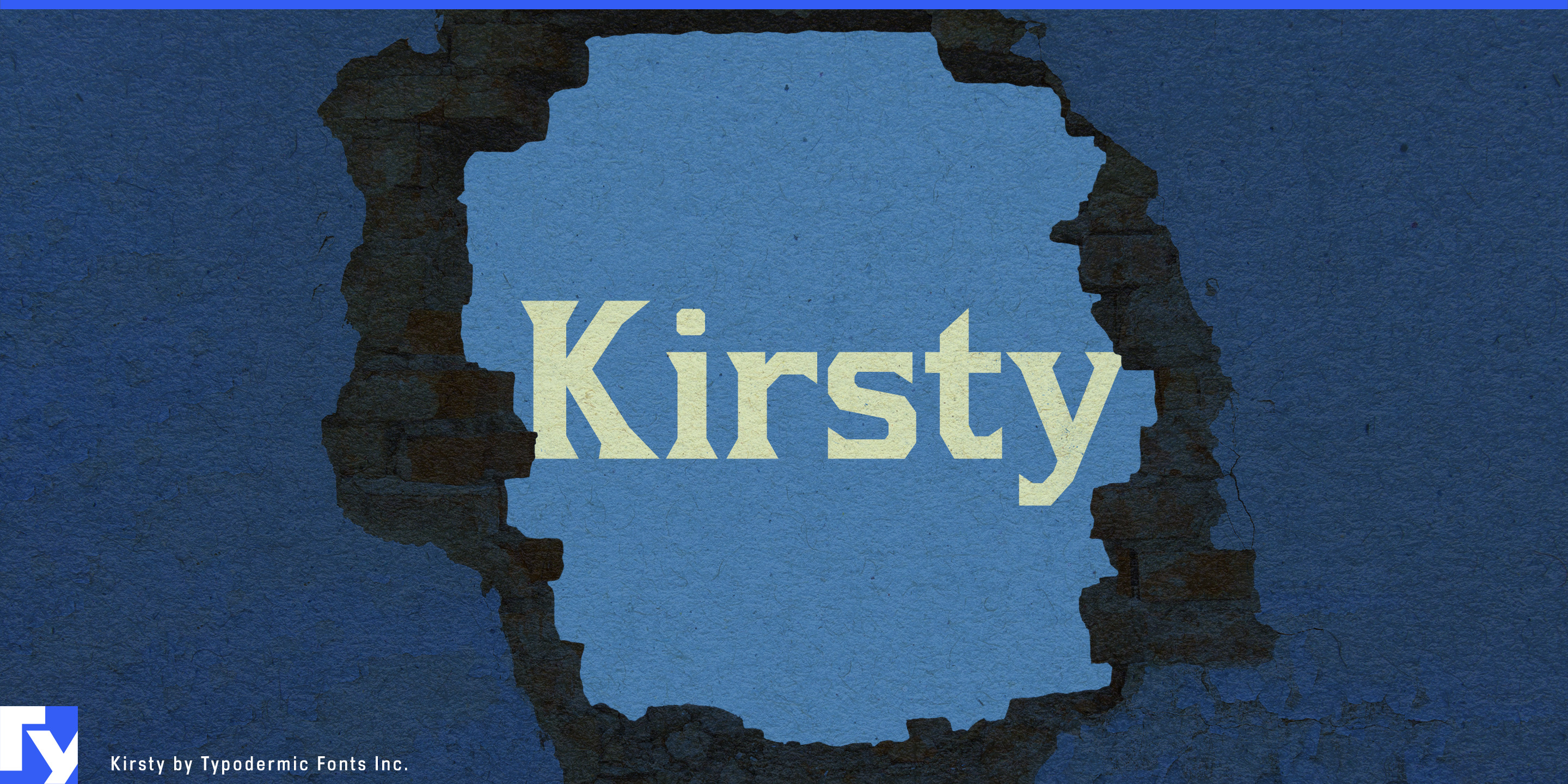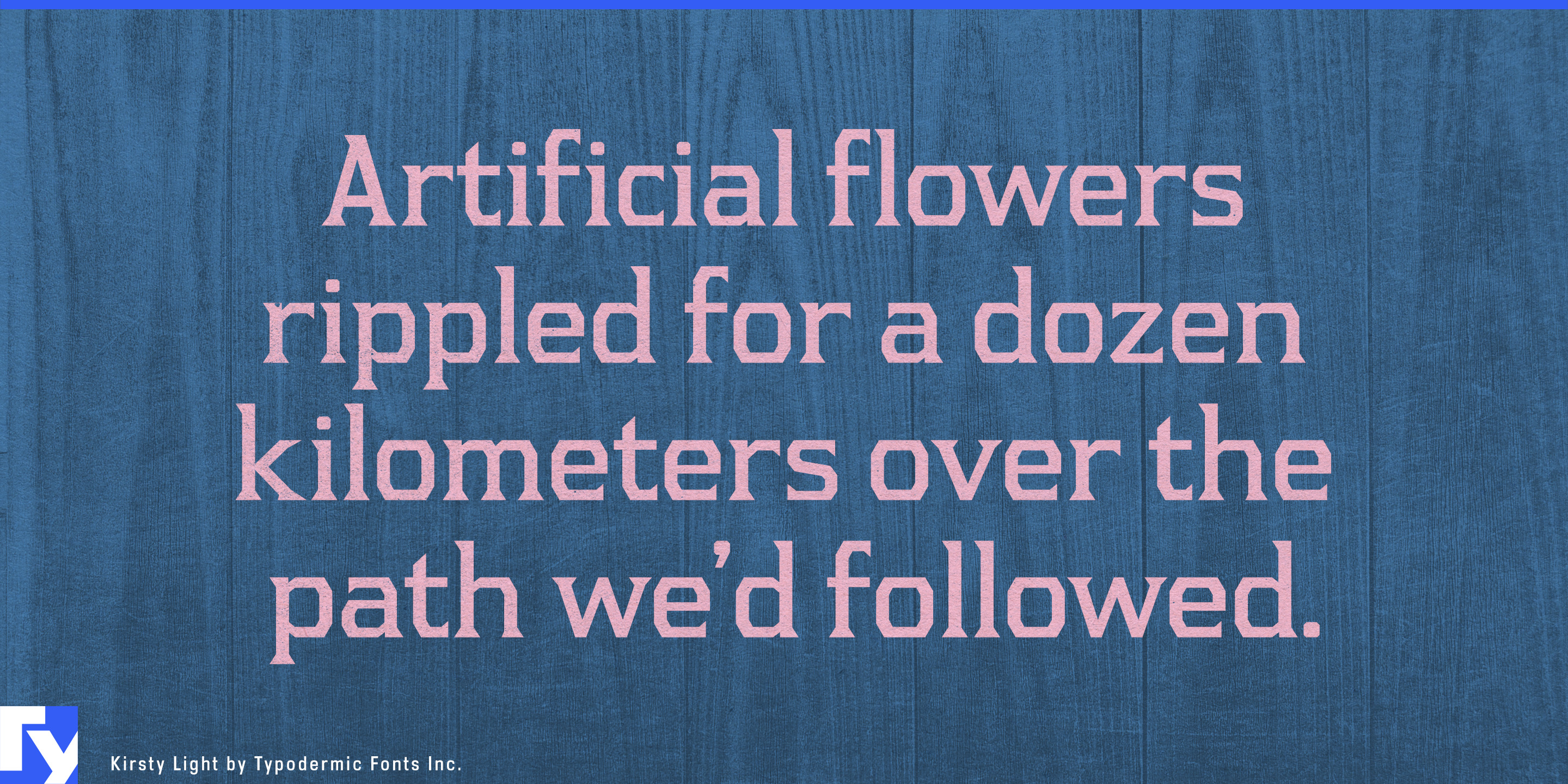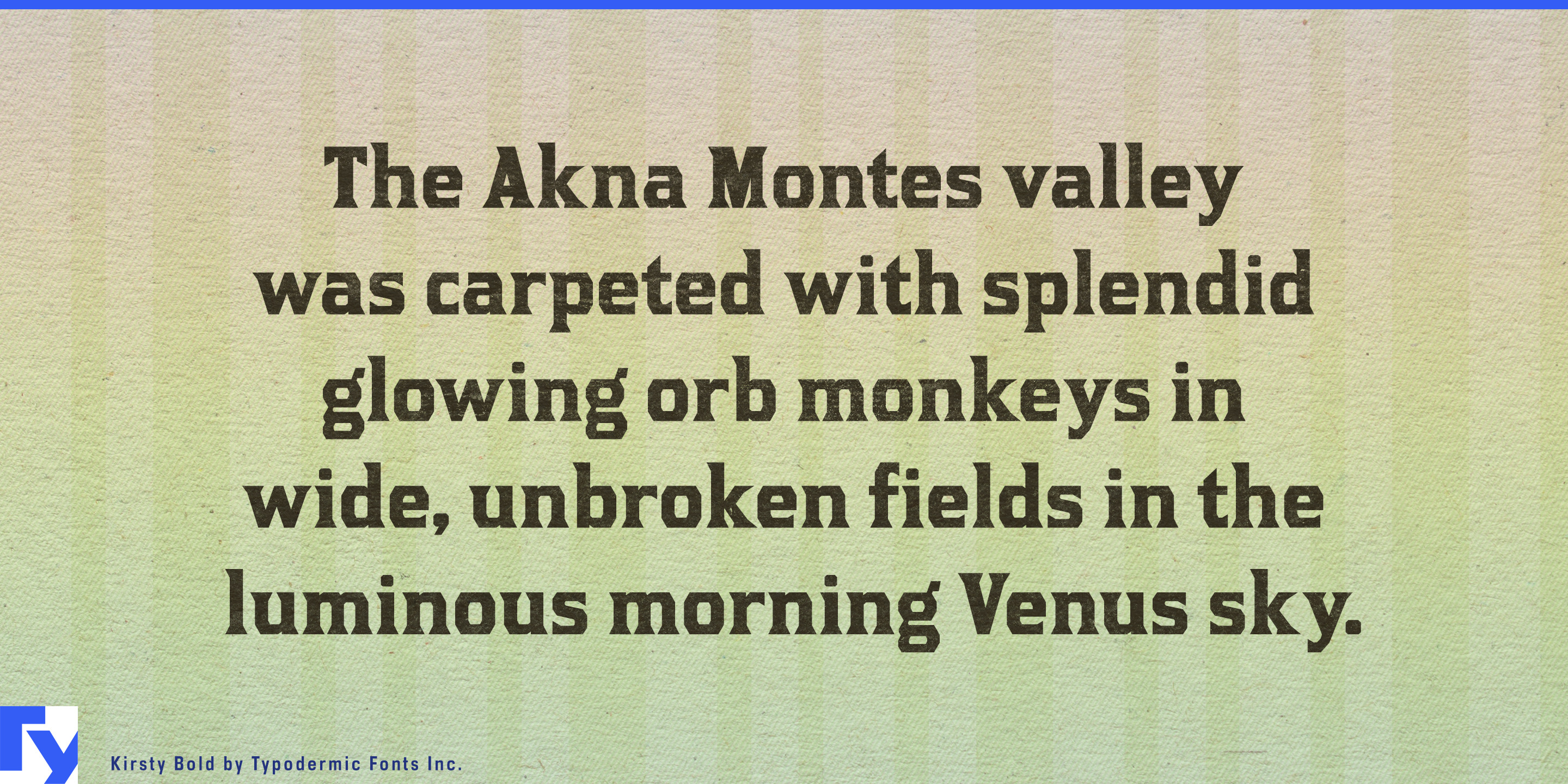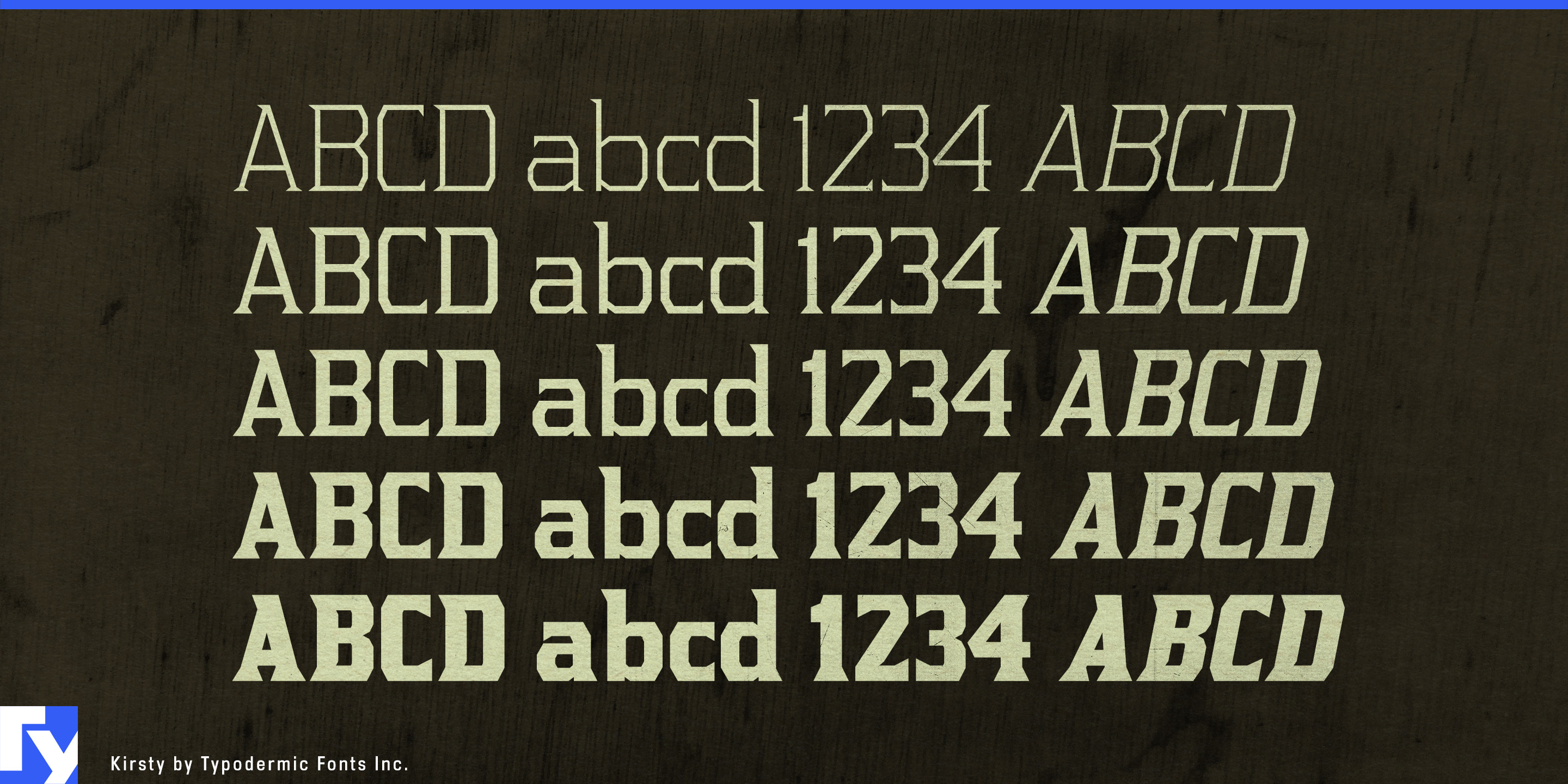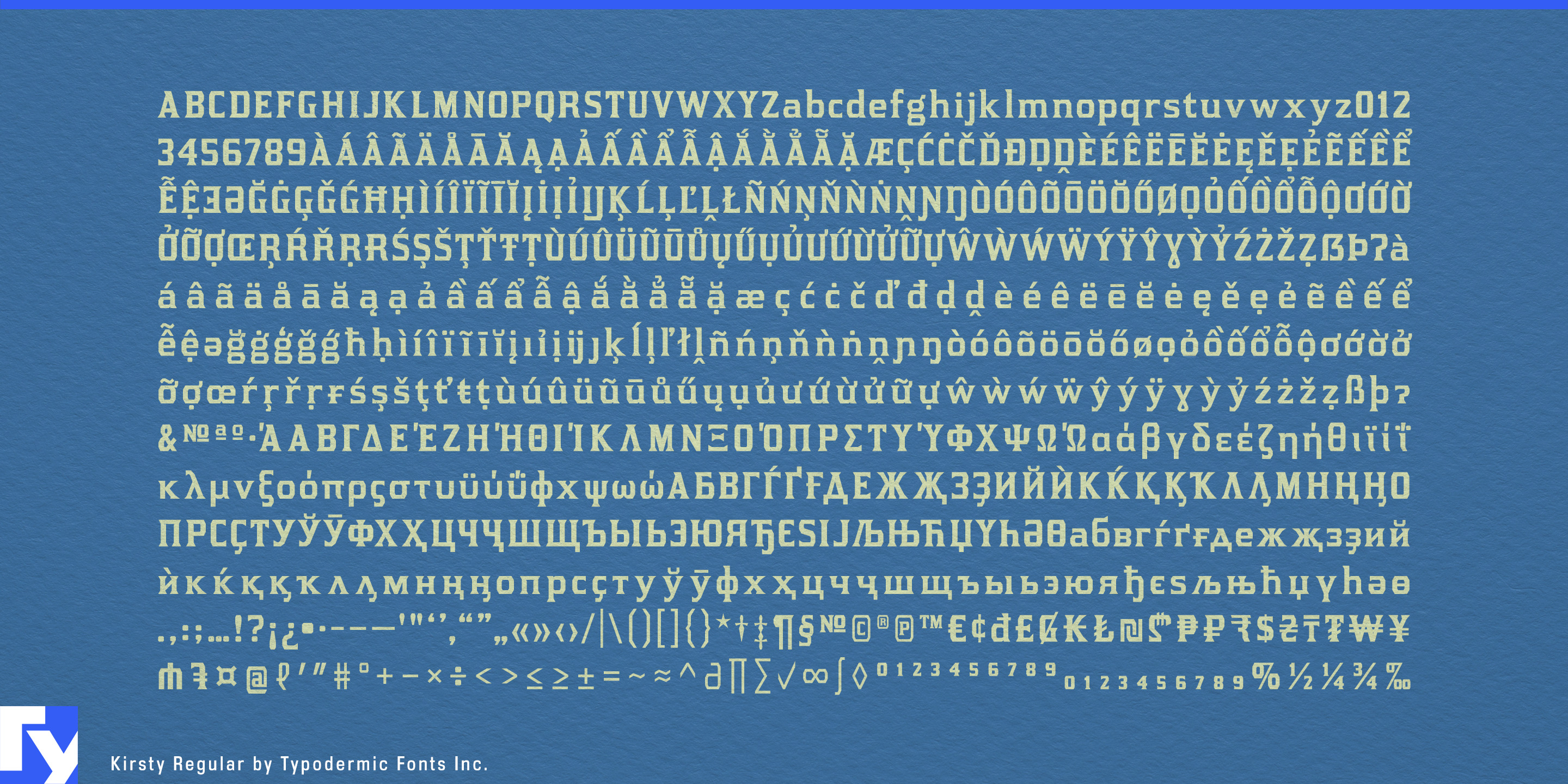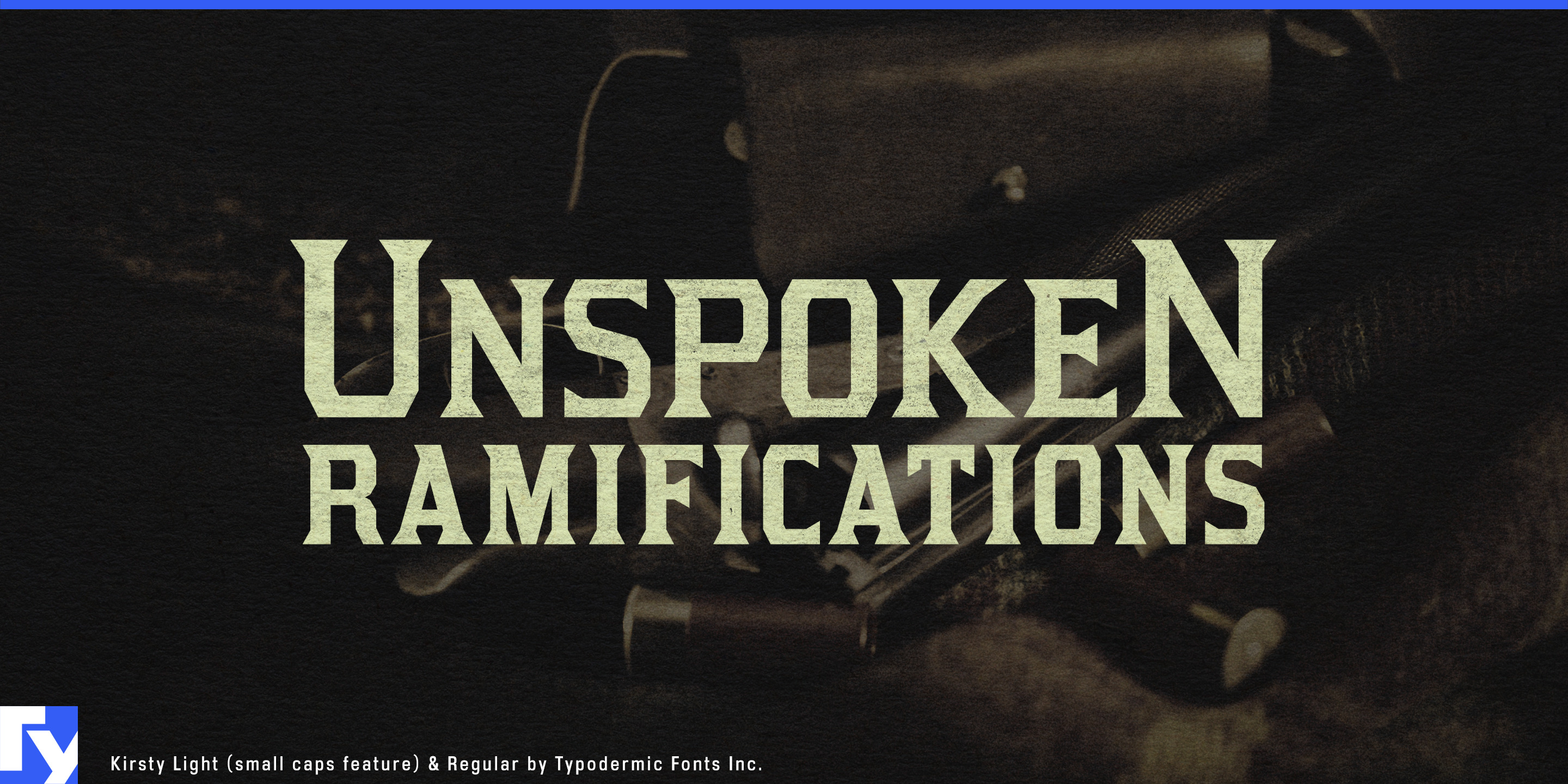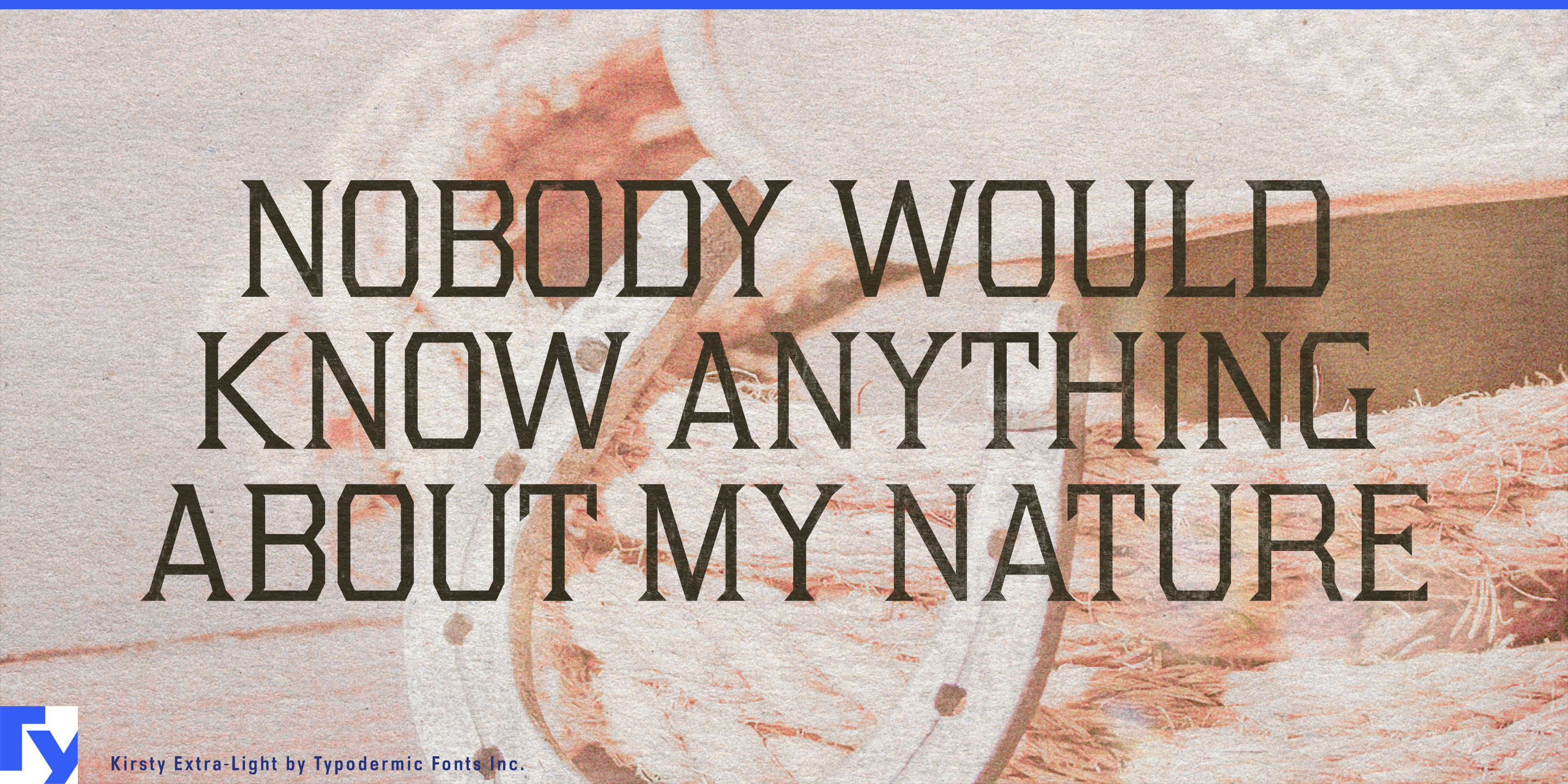
Kirsty
Kirsty brings an uncommon edge to display typography, built on an octagonal skeleton sharpened with Latin serifs. It has presence without clich?; its unusual proportions and high waistlines give it personality that resists being pinned to any one era. While its roots nod to the bold lettering once seen on brick walls and railway signage, its applications stretch far beyond heritage themes.
Across five weights with matching obliques, Kirsty delivers the kind of range that makes it equally at home on a craft beer label, an esports team wordmark, or an indie game title screen. The heavier styles carry the punch for film posters, tourist-district signage, or music festival branding, while the lighter weights with small caps bring a disciplined elegance to editorial layouts or packaging. Its geometry adapts just as well to contemporary high-tech branding as it does to rugged, outdoor gear labels.
With support for Latin, Greek, and Cyrillic scripts—including most European languages and Vietnamese—Kirsty is a global performer. Use it when you want a display typeface that commands attention, offers distinctive structure, and fits into today’s design language without losing its character.